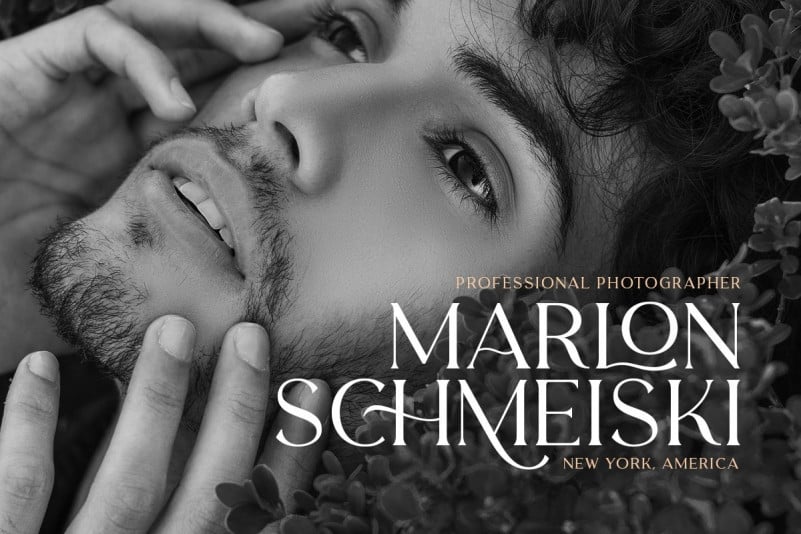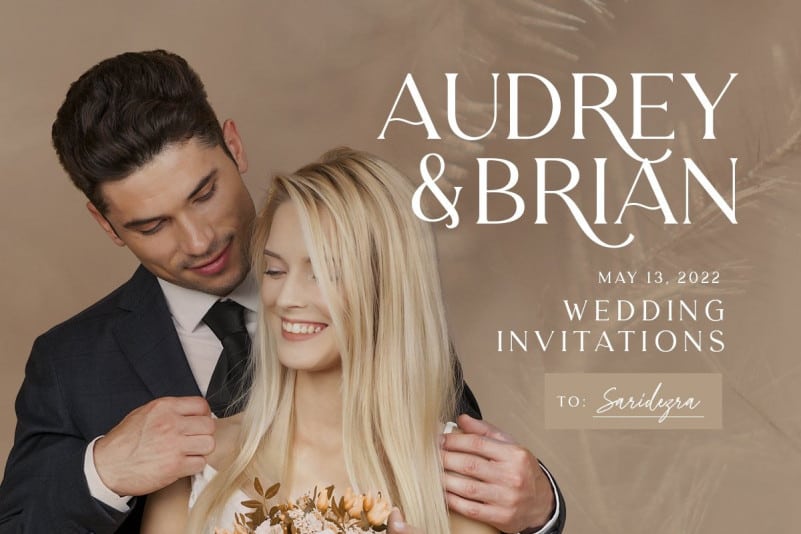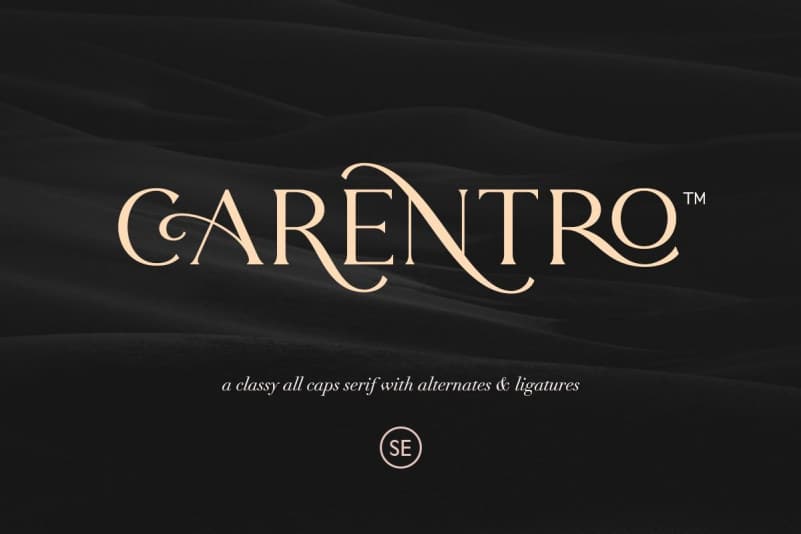
Carentro Serif Font
Meet. Carentro Serif Font is a Serif display font made mainly for headlines, titles, and other short texts and is well-suited for advertising, vintage mood board, branding, logotypes, packaging, titles, editorial design and modern and vintage design. It’s designed and shared by Sarid Ezra. A classy and modern serif with a bunch of alternates for each characters and ligatures that will make your presentation or logo even more stunning and stand out!
You can use this font as a complement of your script collections or use this font as a stand alone font for several purposes such as a wedding invitations or even your own brand! This fonts support Multi Language and already PUA Encoded!